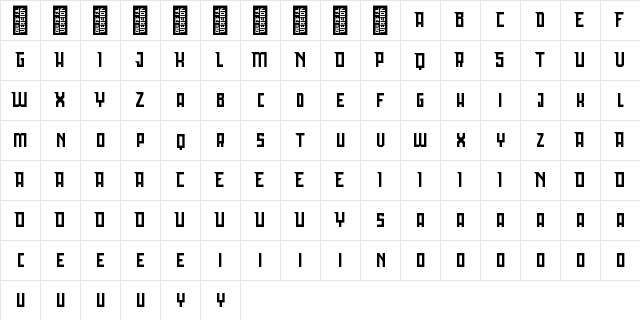
Bedebah Regular
| Foundry | HOLIS MAJID |
| Designer | HOLIS MAJID |
Design Context for Bedebah Typeface
Bedebah offers clean, dependable letterforms without strong stylistic allegiance, making it a practical choice for designers who need flexibility.